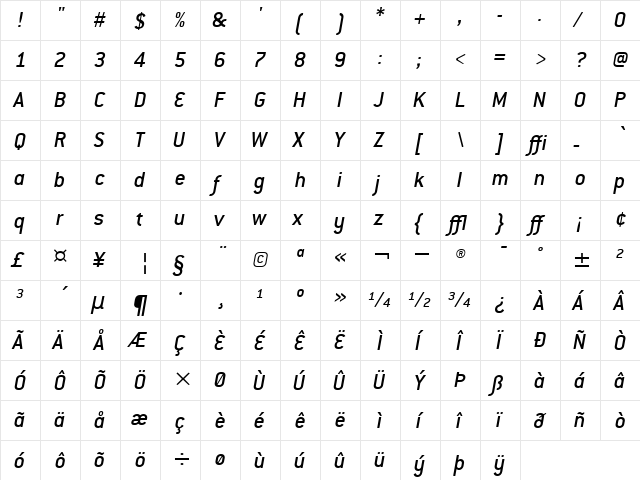
ConduitMdITC TT MediumItalic Font Preview
Design Context for ConduitMdITC TT Typeface
ConduitMdITC TT is a composed and adaptable typeface that performs quietly and consistently across a wide range of design contexts. The dynamic lean of this cut emphasises speed and emphasis in any layout. The condensed width makes it efficient for tight spaces without sacrificing legibility.